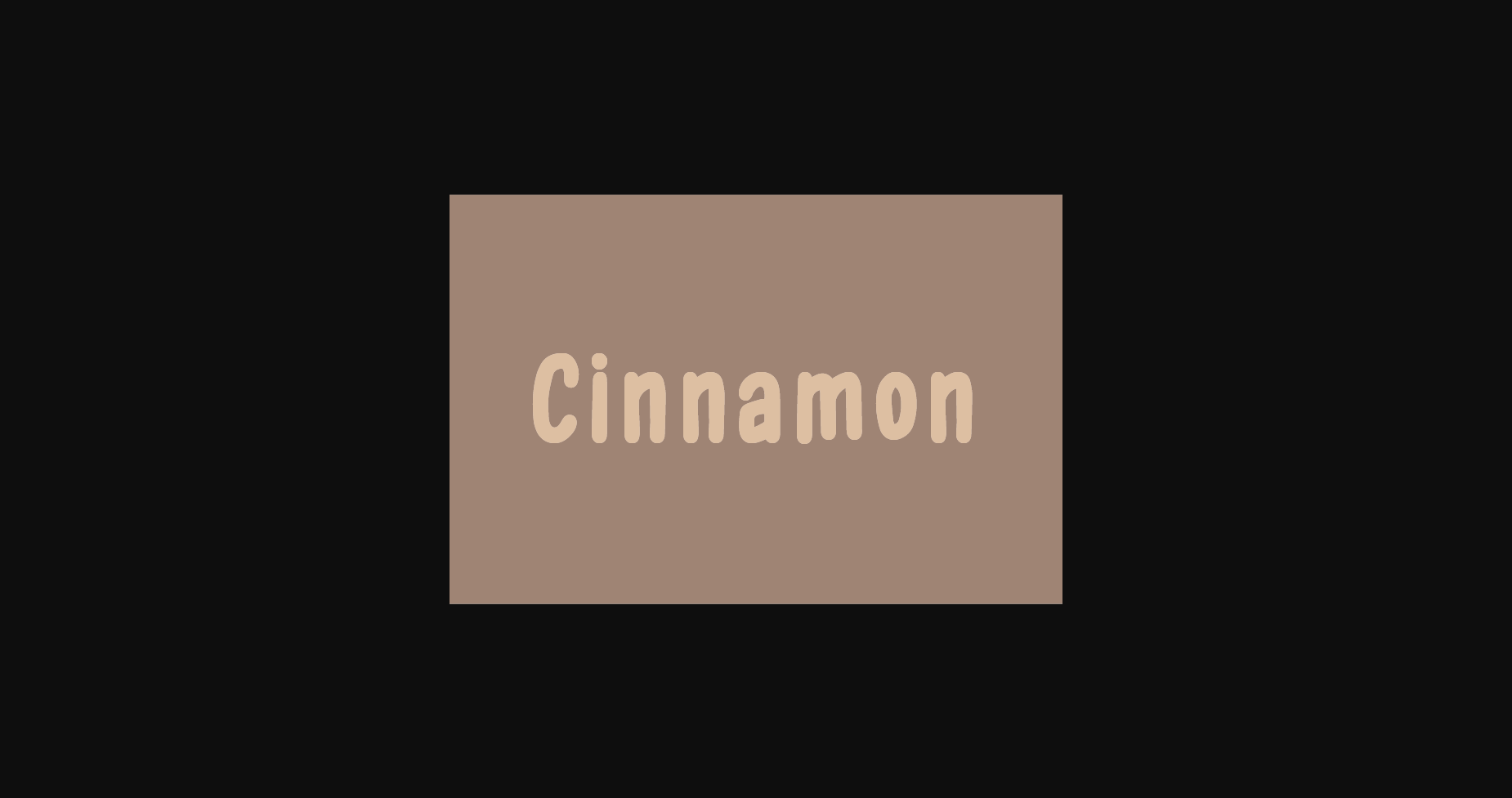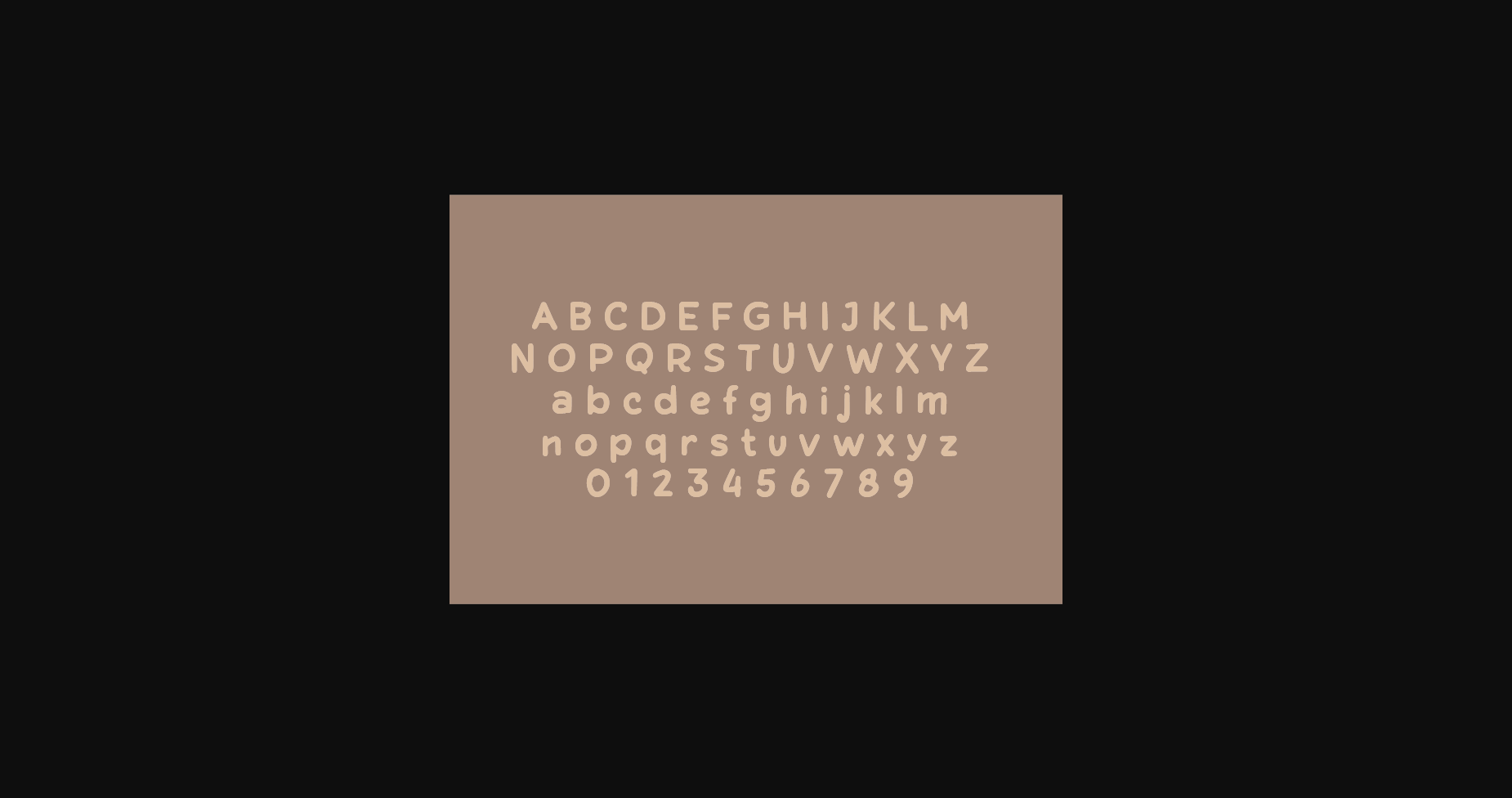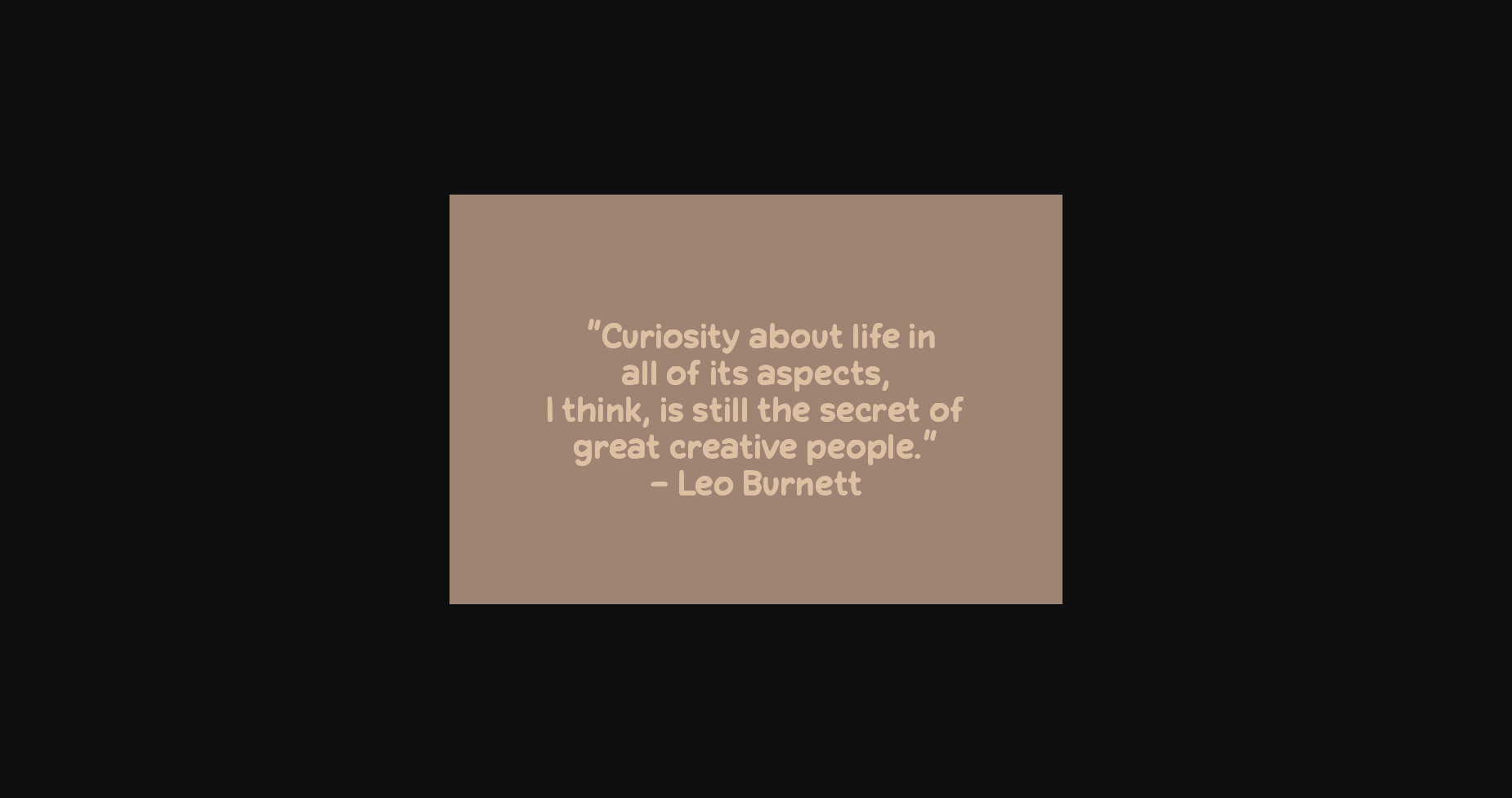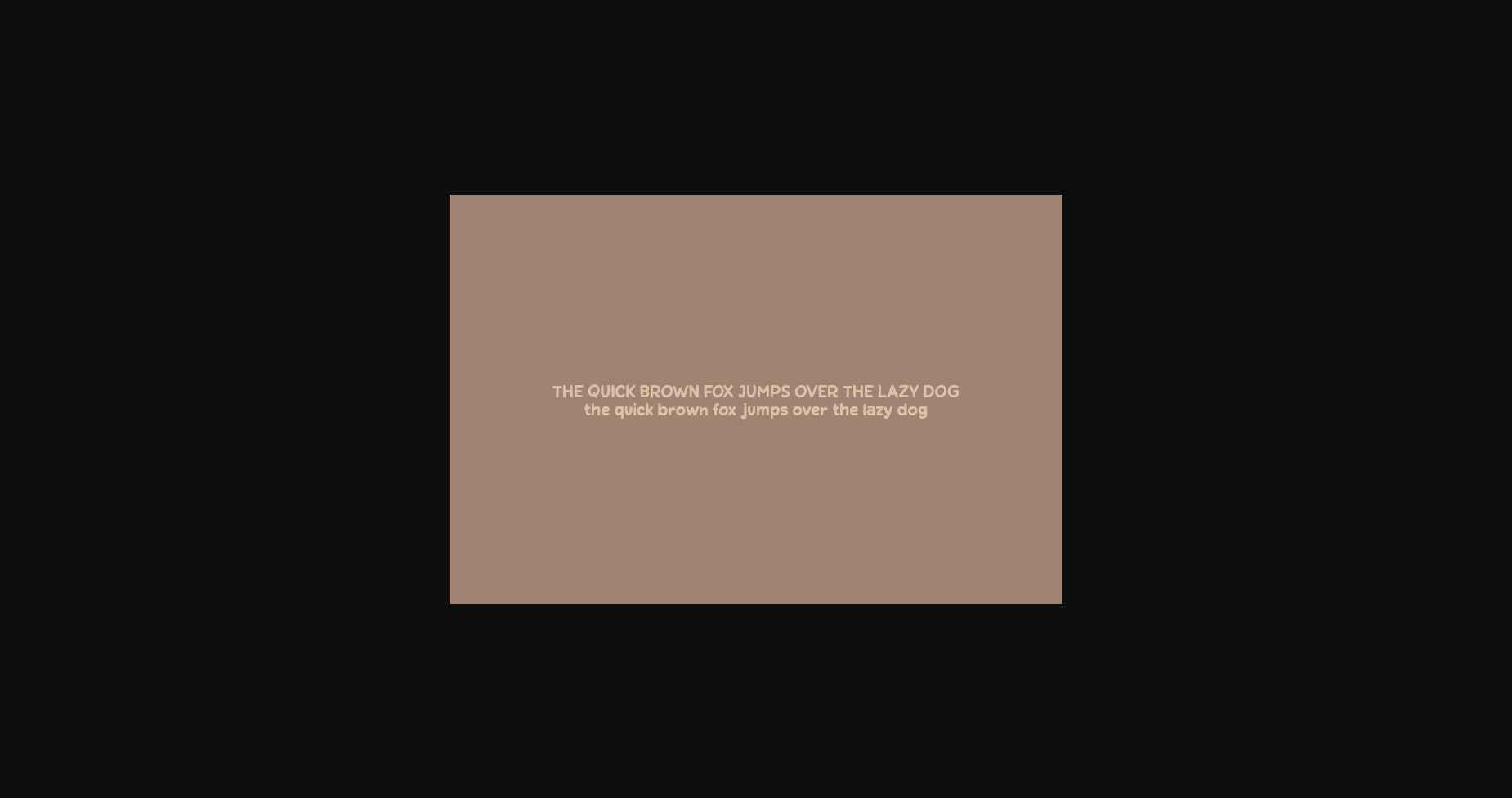
HomeSans Serif FontsCinnamon Font Sans Serif Fonts Cinnamon Font FacebookXPinterestWhatsApp 1 of 6 ... Cinnamon Font Poster 2... Cinnamon Font Poster 3... Cinnamon Font Poster 4... Cinnamon Font Poster 5... Cinnamon Font Poster 6... About Cinnamon Font Cinnamon is a natural sans serif font made without changing a single node in each character’s indentation. This makes this font very interesting and unique. Perfect for quotes, notes, tees, and any product design. DOWNLOAD NOW People also explored Pisang Iffection Font Cattle Annie Breath Font Smoothing Font Wild Skullen Font Solid Navy Bella Canvas 8413 Mockup Tee Pride Font Chiettha Font 278 0 TagsCinnamon Font Previous articleBaleogh FontNext articleMaximus Font LEAVE A REPLY Cancel reply Comment: Please enter your comment! Name:* Please enter your name here Email:* You have entered an incorrect email address! Please enter your email address here Website: Save my name, email, and website in this browser for the next time I comment. Personal Use Free Free Personal Use Free Read more about this font Gonestones Personal Use Free Read more about this font Rafika Personal Use Free Read more about this font Feather Script Personal Use Free Read more about this font BLOG Fonts That Capture the Spirit of New York City New York City is more than just a place—it’s an experience, a rhythm, a visual language... Best Fonts for YouTube Videos: Make Your Thumbnails Stand Out 5 Fonts That Will Dominate Design Trends in 2026 Where to Buy American Fonts Online in 2024